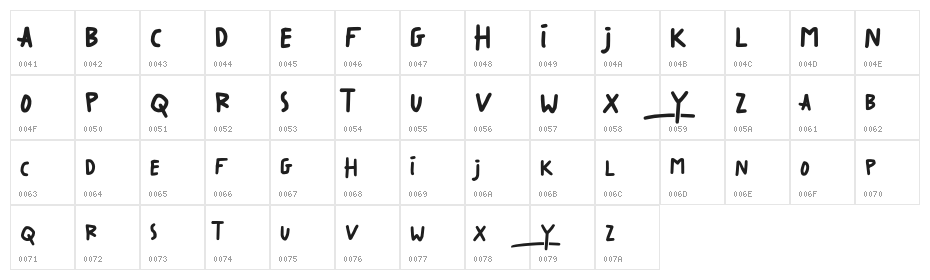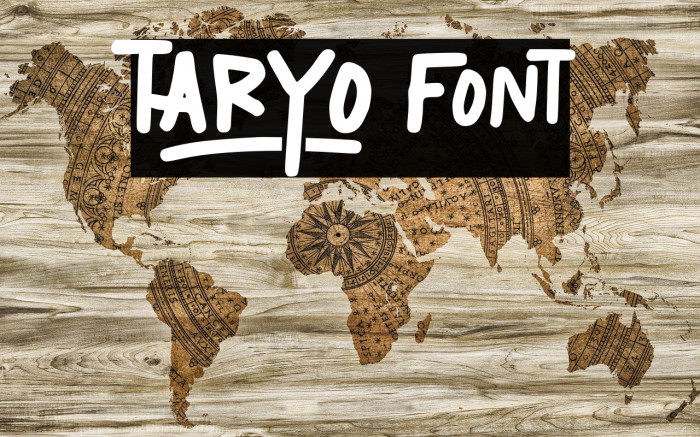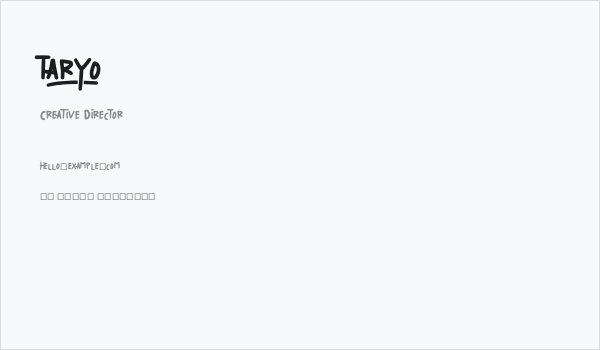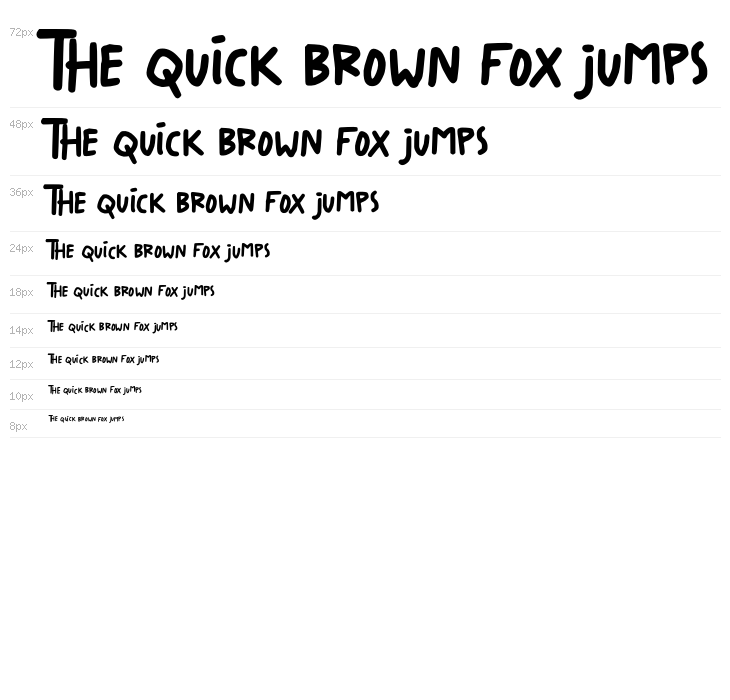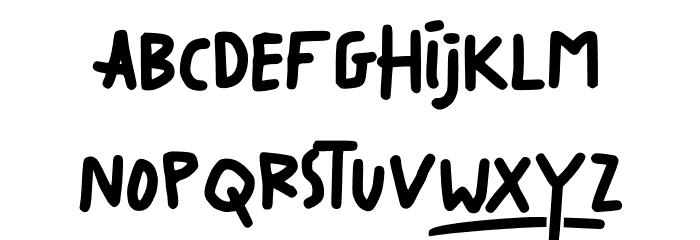
TARYO Font
TARYO Description
This font features a bold, handwritten style with a playful and casual appearance. The letters are slightly irregular, giving it a dynamic and energetic feel. The uppercase letters are prominent and bold, while the lowercase letters maintain a consistent flow. The strokes are thick and rounded, contributing to its friendly and approachable look. This font is well-suited for creative projects that require a personal touch, such as invitations, posters, and social media graphics. Its unique style makes it stand out, while still being legible and versatile.
Overall StyleCasual, Playful
Use CaseHeadlines, Logos, Creative projects
Proposed ProjectsIdeal for invitations, posters, social media graphics, and creative projects.